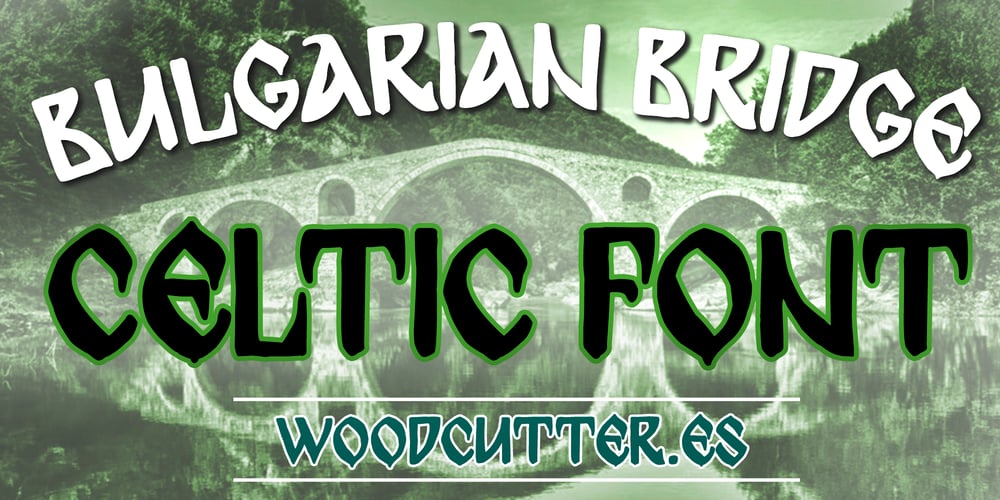
Bulgarian Bridge Font Family was designed by Jordi Manero and published by Woodcutter. Bulgarian Bridge contains 1 styles and family package options. “Bulgarian Bridge” is an uppercase font that blends Gothic aesthetics with Celtic influences, evoking an ancient and mystical style. Each letter features a hand-drawn stroke that gives the impression of being carved or manually sketched, with irregular and detailed lines that provide a rustic and ancient character. The Gothic appearance merges with Celtic motifs, creating a robust yet subtly ornate typeface. It’s perfect for projects aiming to convey an atmosphere of antiquity, history, and cultural tradition.